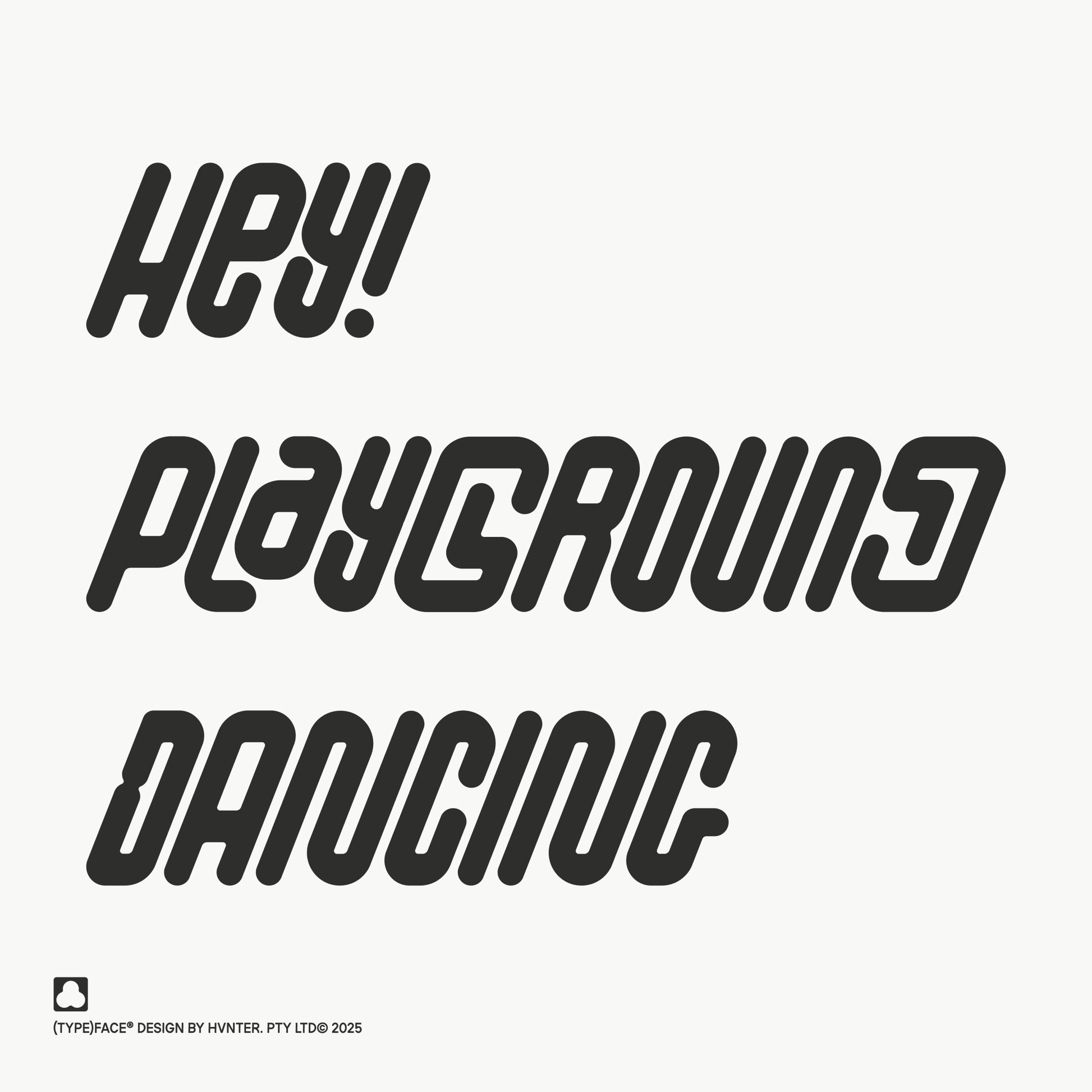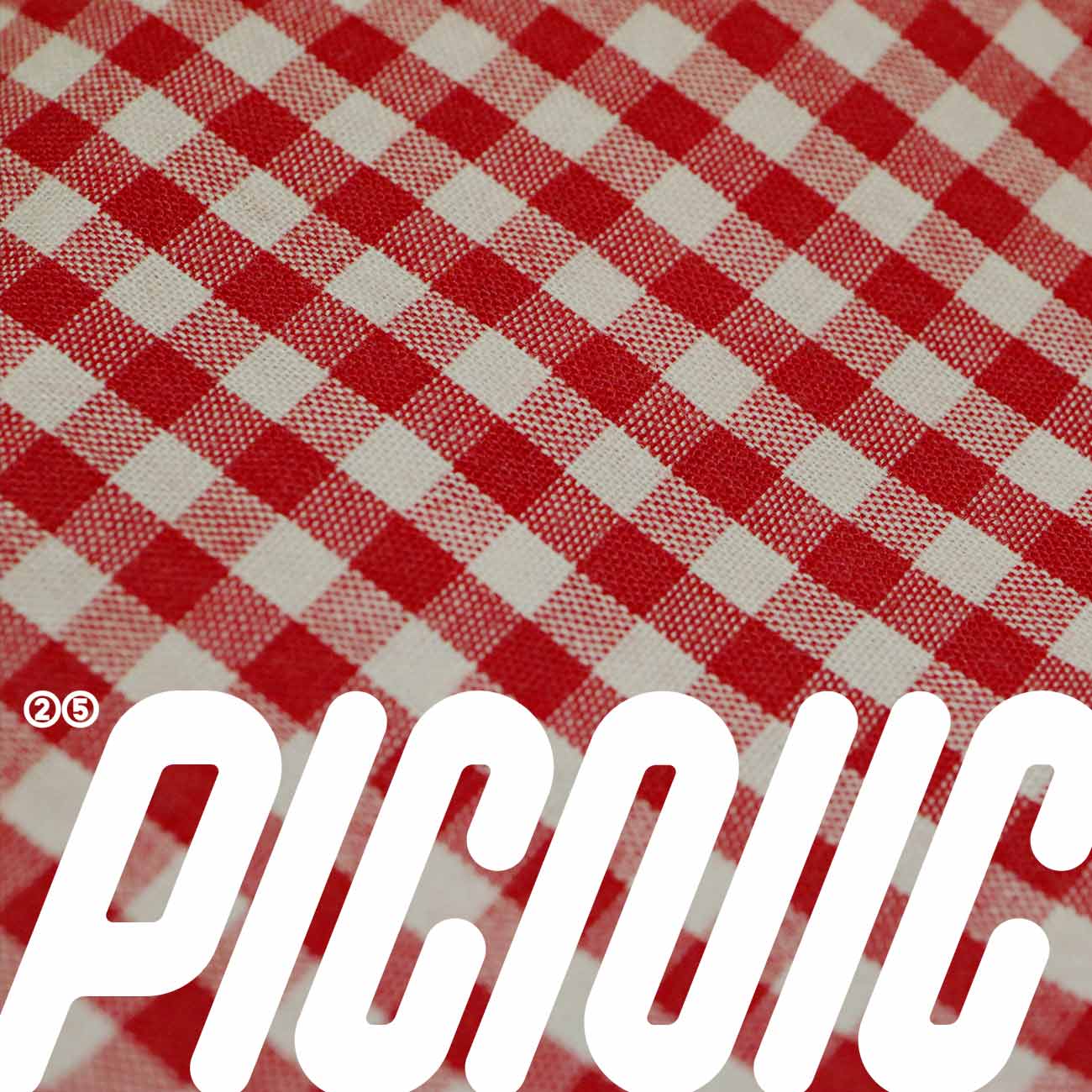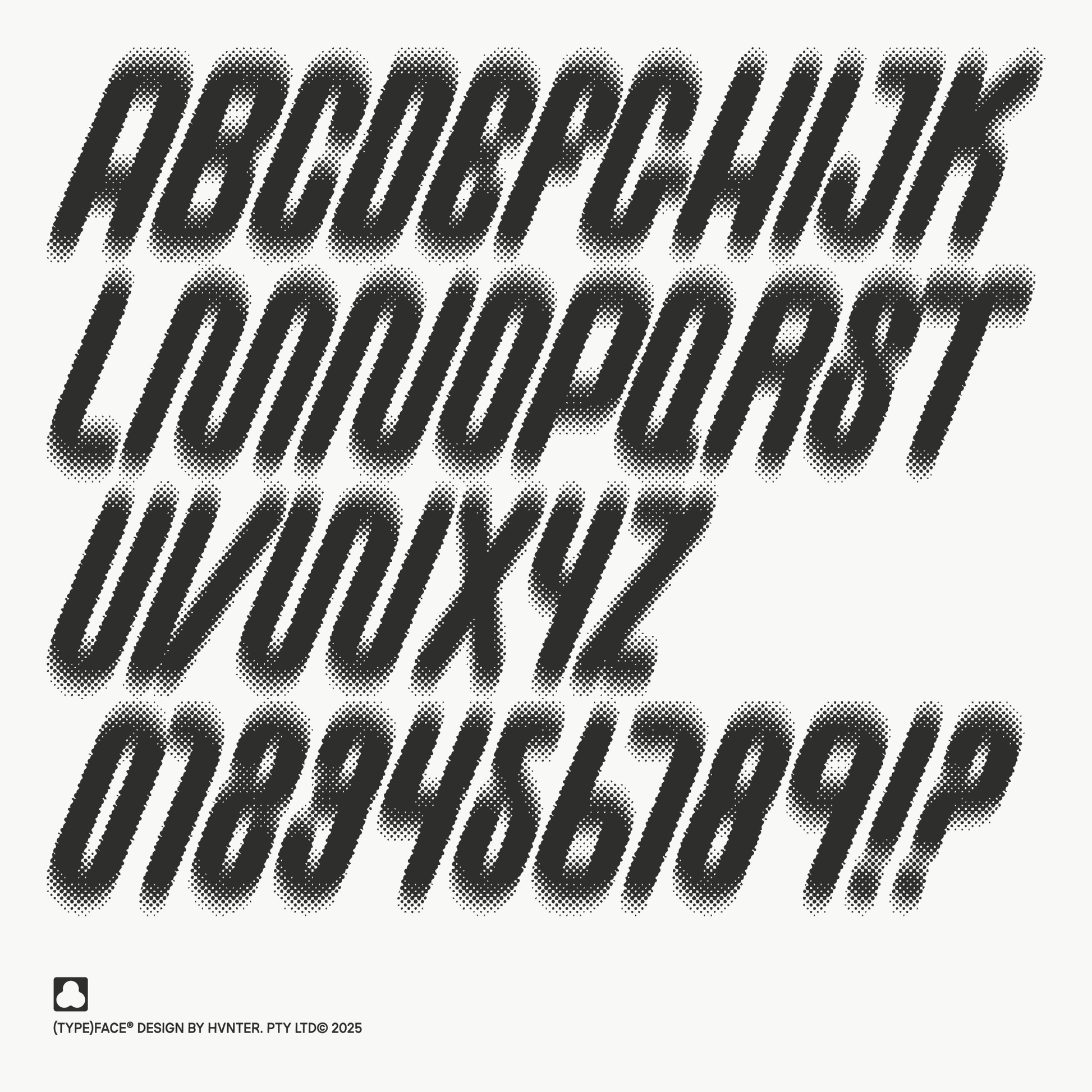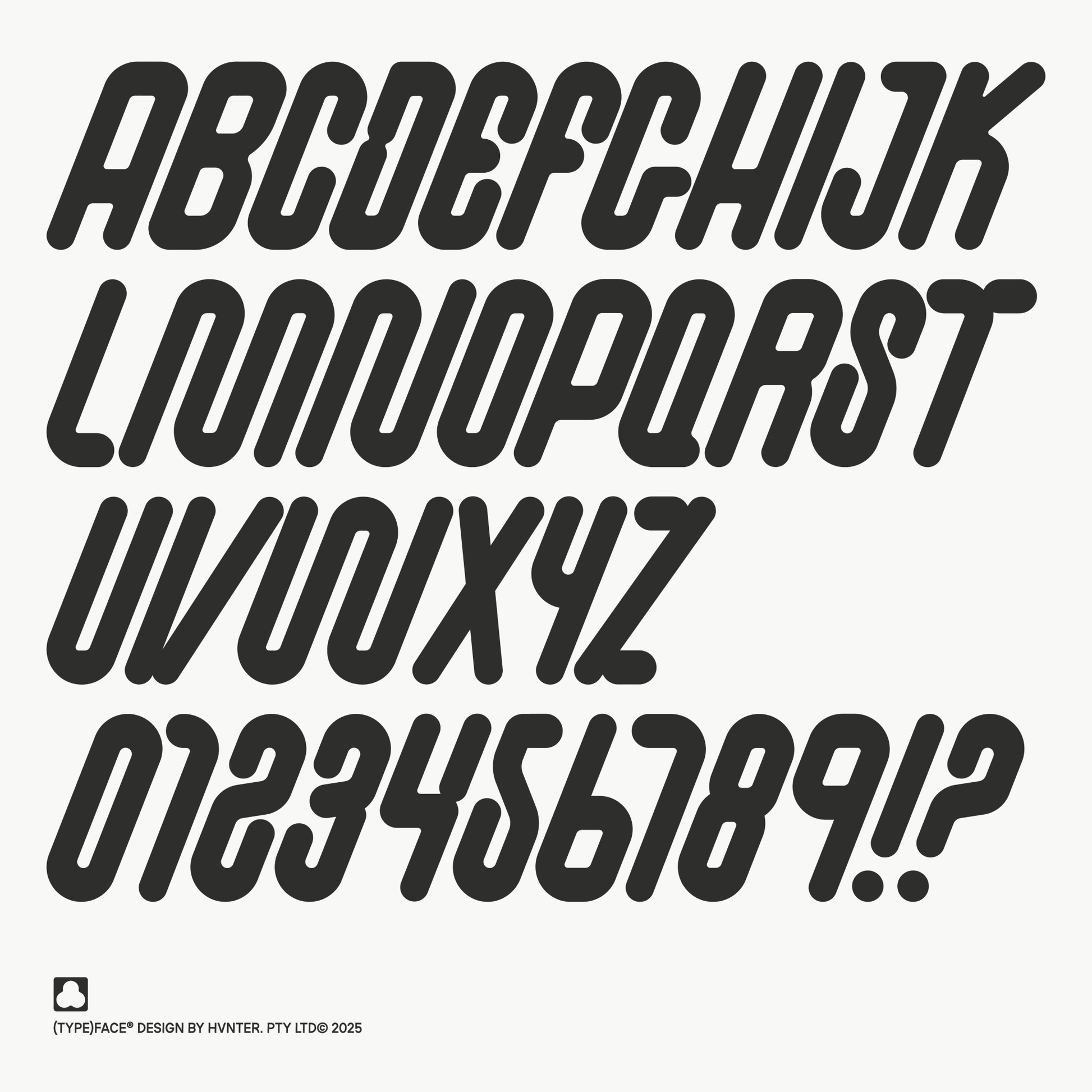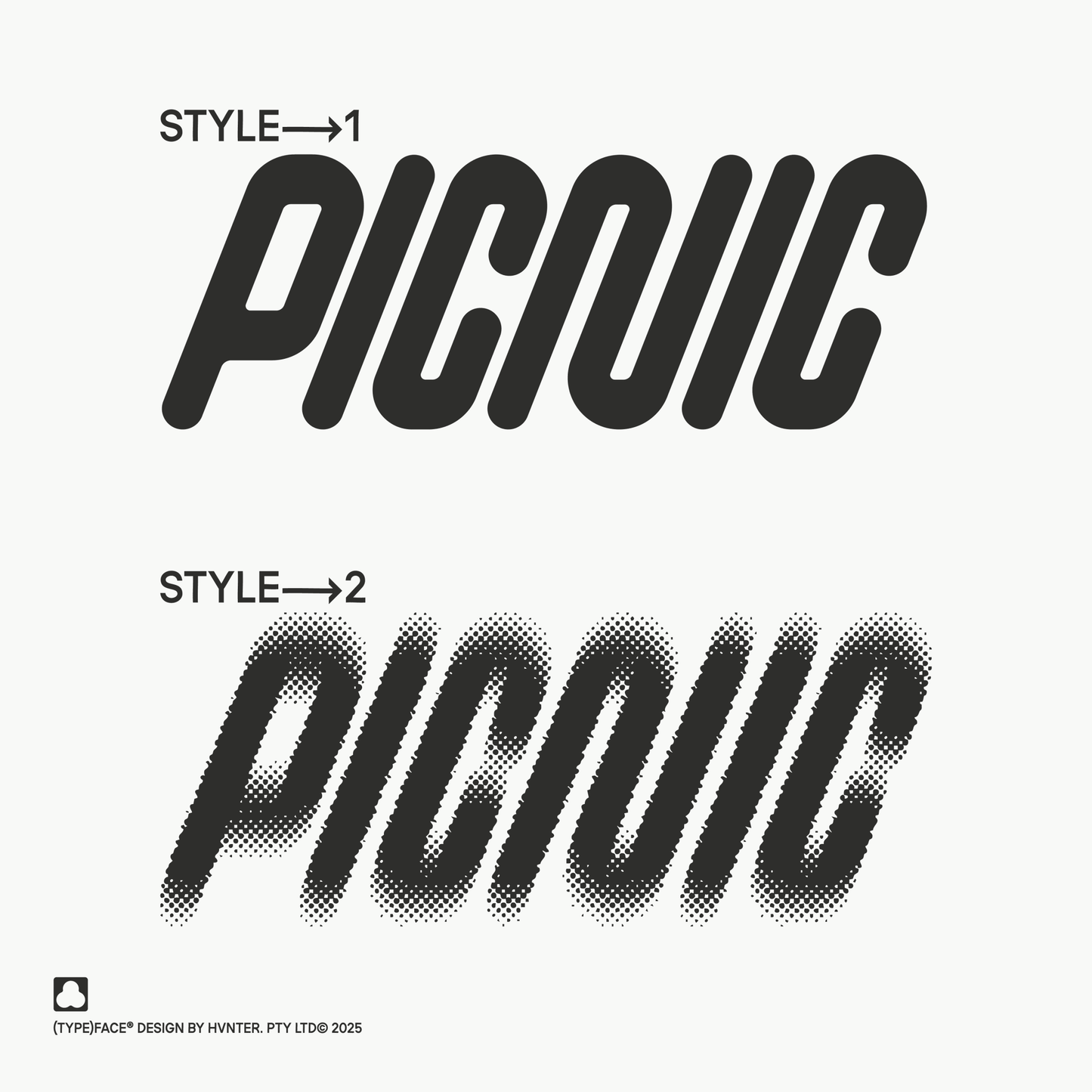
Picnic is a high-impact display typeface designed for bold statements and graphic-forward layouts.
Rounded terminals. Thick strokes. A subtle forward lean that gives it motion without forcing it. It feels vintage and contemporary at the same time — like something pulled from a 1978 race poster that's been rebuilt for today.
You get two styles:
Style 1 – Clean, solid display
Style 2 – Halftone-textured variation with blur, for grit and depth
Both include:
- Uppercase A–Z
- Numbers 0–9
- Basic punctuation and symbols
Picnic is built for scale. It performs best large — headlines, posters, apparel graphics, brand marks, editorial spreads, packaging, social graphics, and anything that needs presence without sharp aggression.
This is not a body font. It’s a visual anchor.
- Style 1 (Solid)
- Style 2 (Halftone texture)
Ideal For
- Apparel and streetwear graphics
- Motorsport / athletic branding
- Posters & editorial headlines
- Album artwork
- Logo exploration
- Social campaigns
- Packaging
Designer: HVNTER